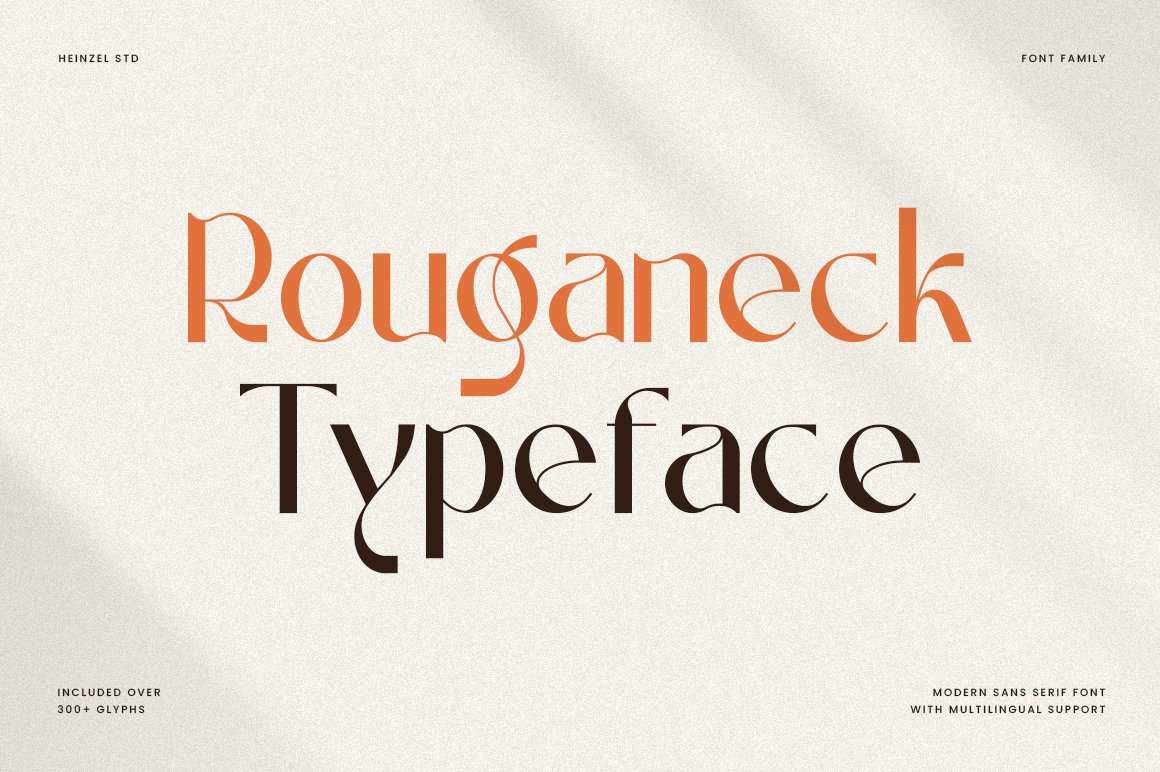
Rouganeck Sans Serif Font
Rouganeck Typeface – Modern Sans Serif Font with Elegant Alternates
Rouganeck Typeface is a modern sans serif font that blends elegance with contemporary style. Designed with refined curves and unique letterforms, Rouganeck brings sophistication to any project. With over 300+ glyphs and multilingual support, this font is versatile and perfect for both digital and print use.
Whether you’re working on branding, logos, editorial layouts, packaging, fashion design, or website headers, Rouganeck delivers a clean yet artistic touch. Its bold and graceful alternates allow for creative customization, making it ideal for designers seeking a balance between modern minimalism and distinctive flair.
Key Features:
Modern sans serif style with unique details
Over 300+ glyphs included
Multilingual support for global use
Perfect for branding, logos, posters, packaging & digital media
Elegant alternates for creative typography